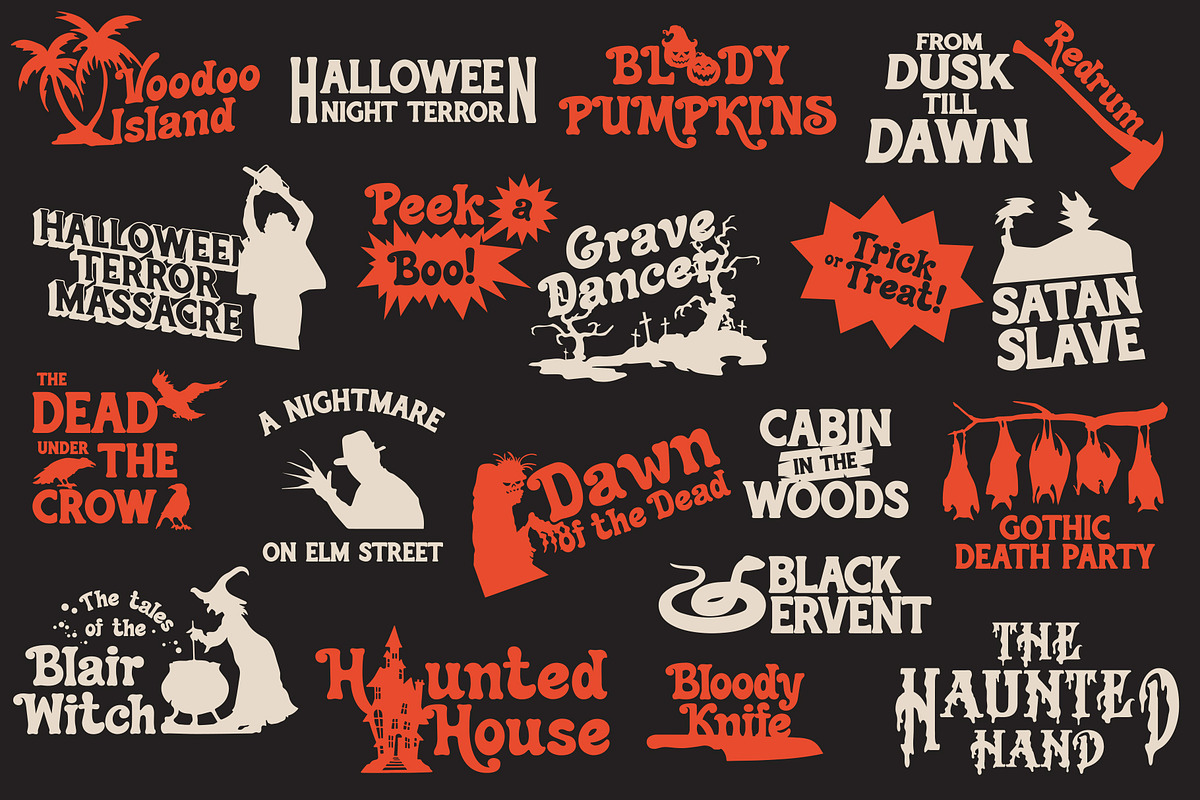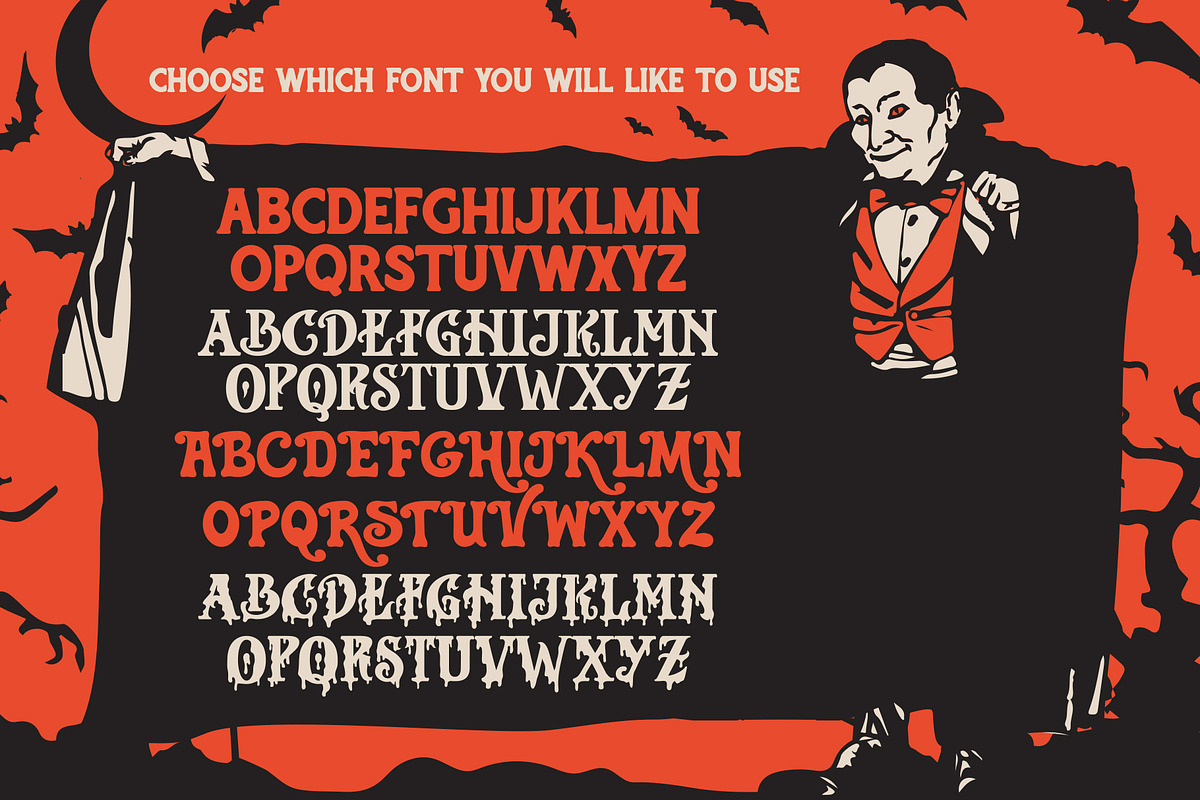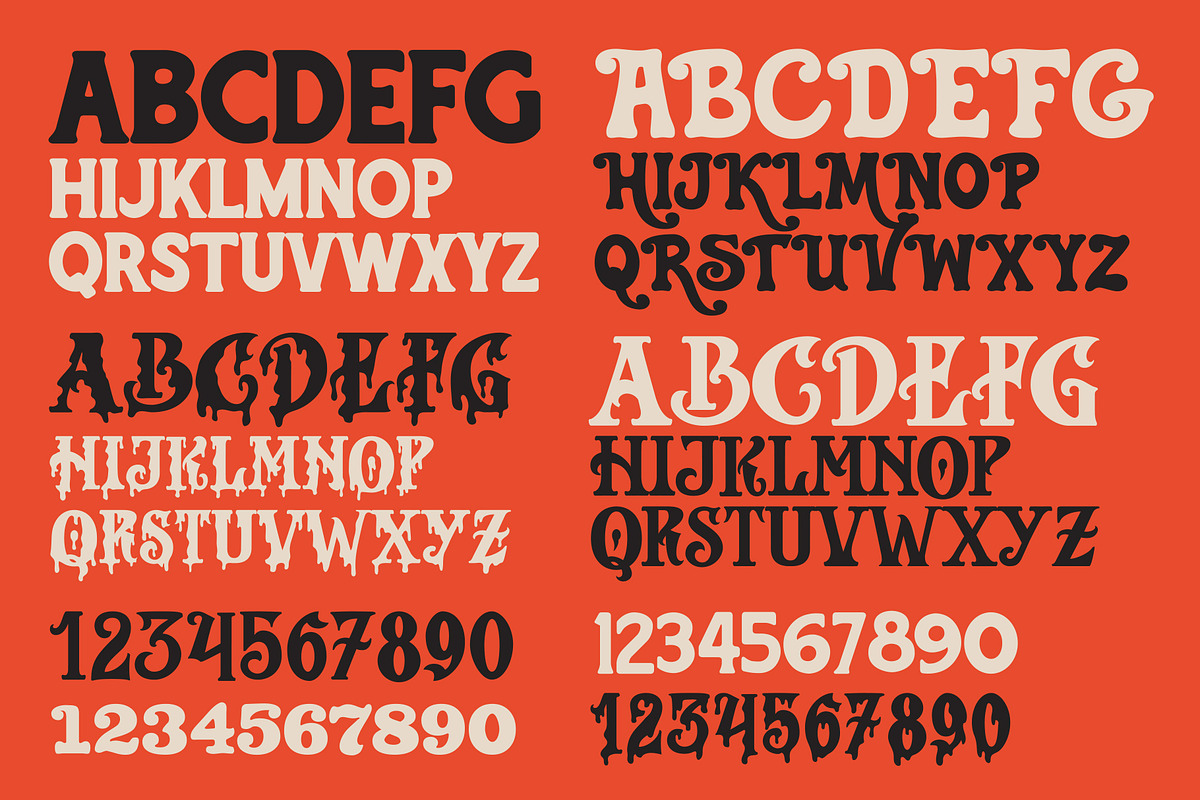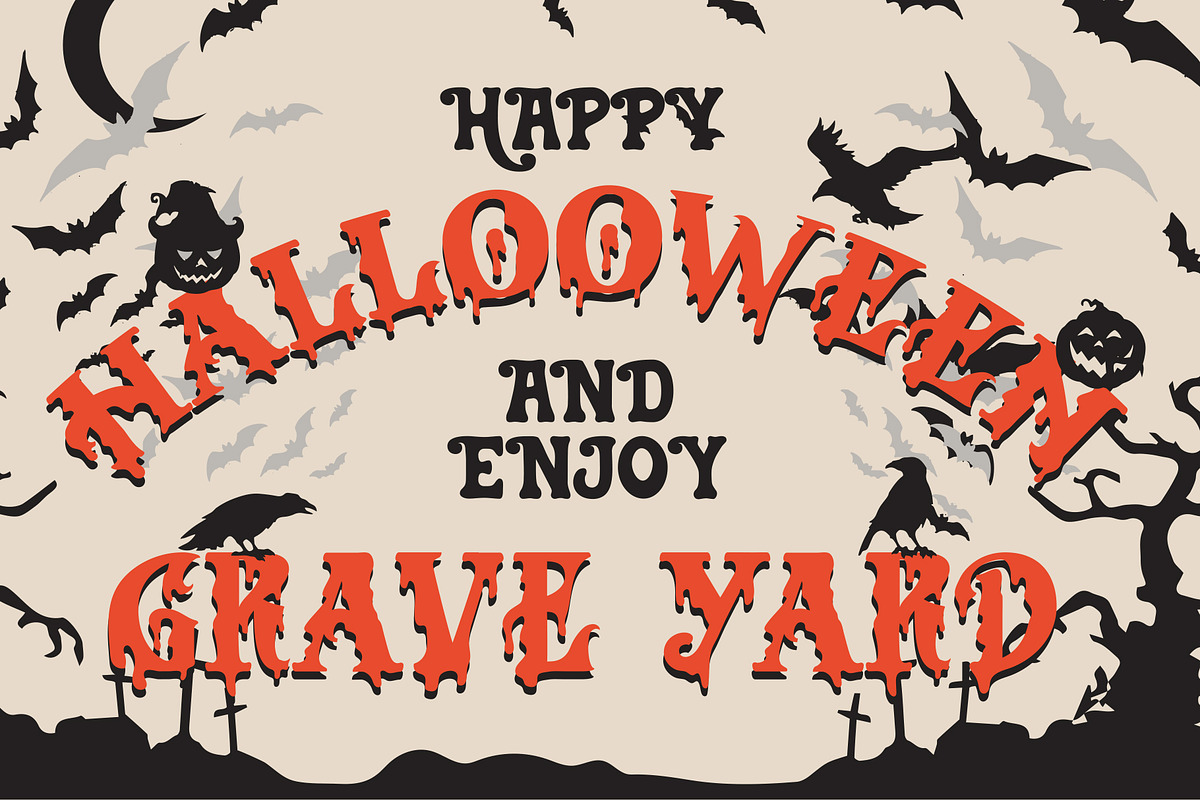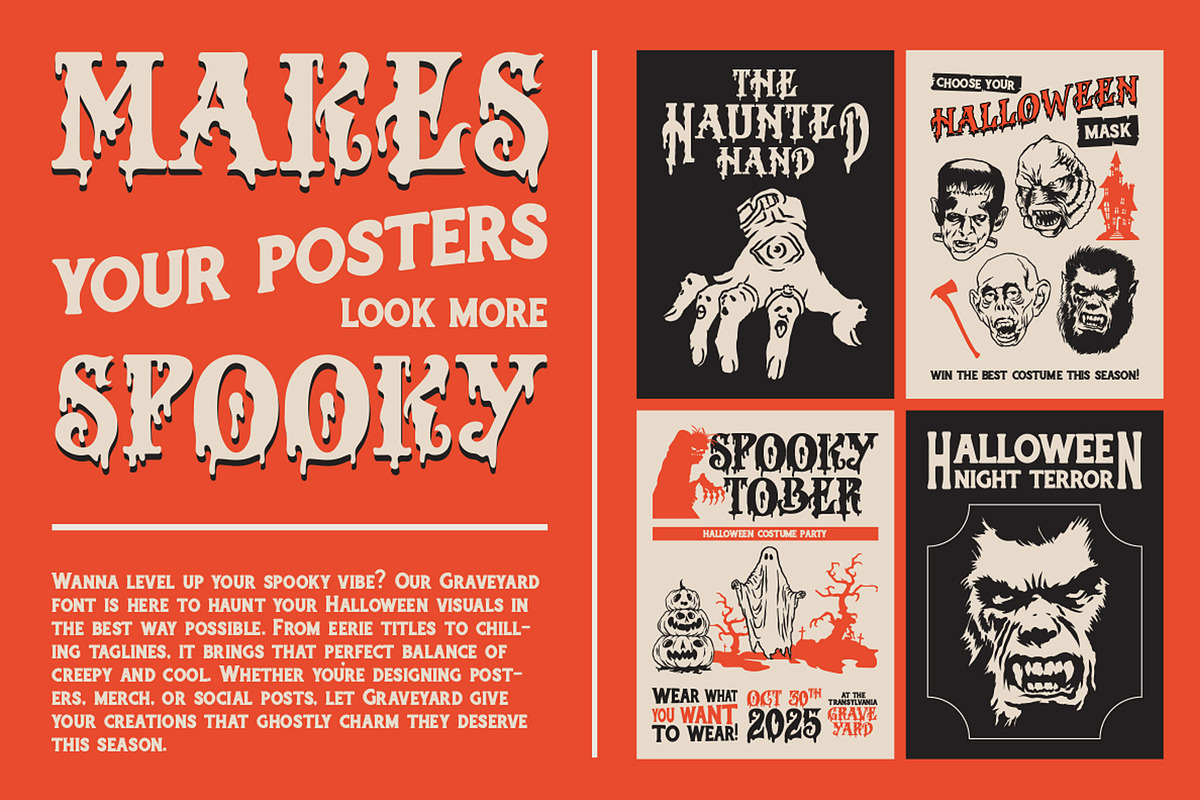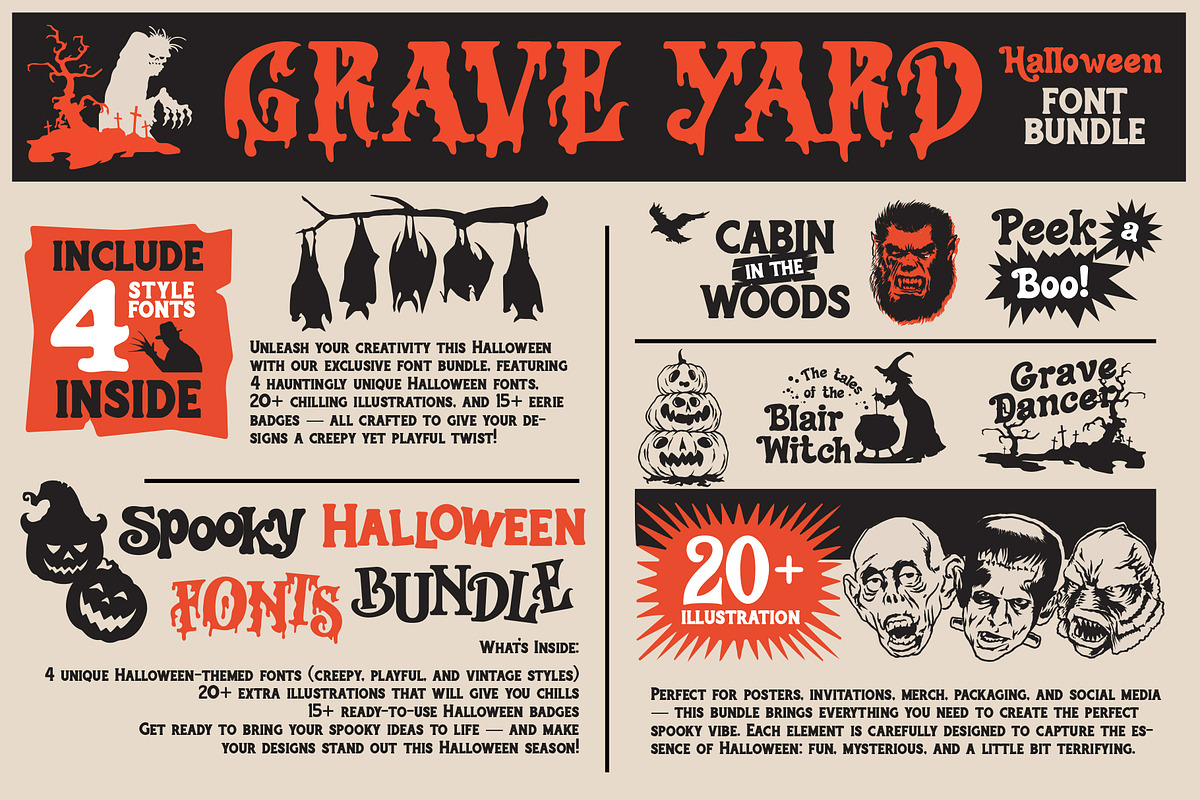
MHM GRAVE YARD
🎃 Spooky Halloween Font Bundle
Unleash your creativity this Halloween with our exclusive font bundle, featuring 4 hauntingly unique Halloween fonts, 20+ chilling illustrations, and 15+ eerie badges — all crafted to give your designs a creepy yet playful twist!
Perfect for posters, invitations, merch, packaging, and social media — this bundle brings everything you need to create the perfect spooky vibe. Each element is carefully designed to capture the essence of Halloween: fun, mysterious, and a little bit terrifying.
🕸️ What’s Inside:
4 unique Halloween-themed fonts (creepy, playful, and vintage styles)
20+ extra illustrations that will give you chills
15+ ready-to-use Halloween badges and emblems
🦇 Get ready to bring your spooky ideas to life — and make your designs stand out this Halloween season!